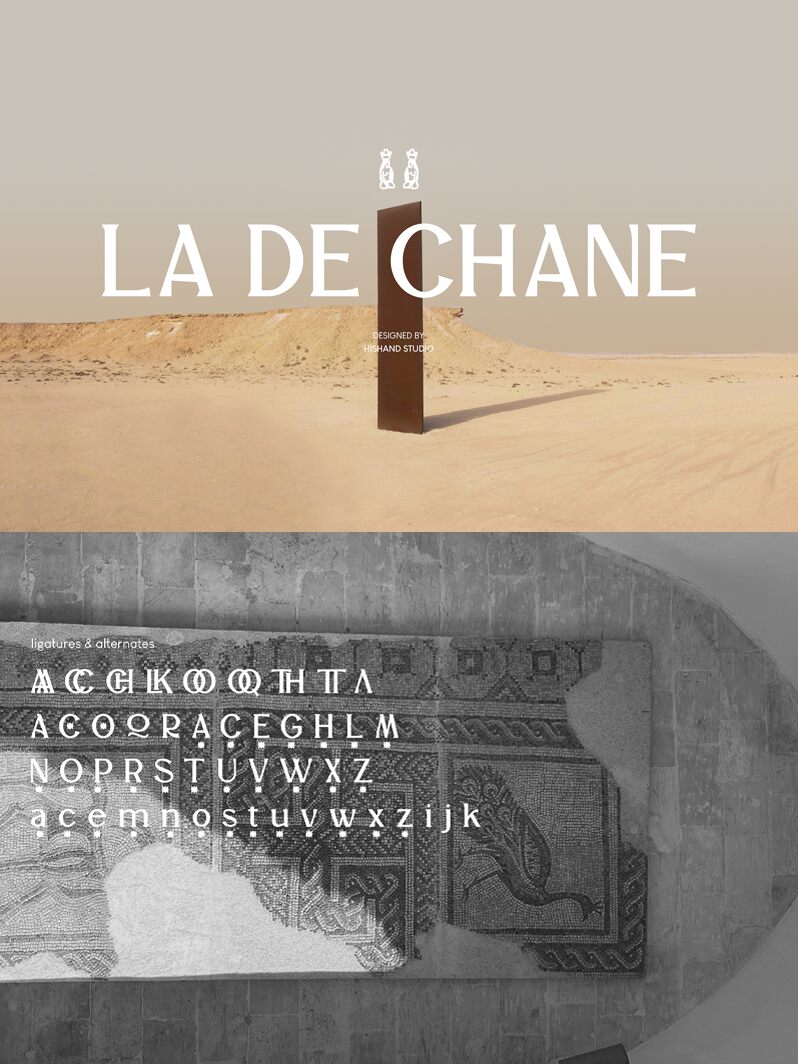
La de Chane font by Hishand Studio is a classic serif free font that holds elegance to the highest standards. It’s a formal typeface that exudes sophistication and strong presence through its refined serifs. The letters are inspired by historical influences, making it perfect for diverse professional projects.
Enjoy using this elegant font in books, newspapers, branding, posters, text size work, websites, logos, product packages, greeting cards and all printed designs.